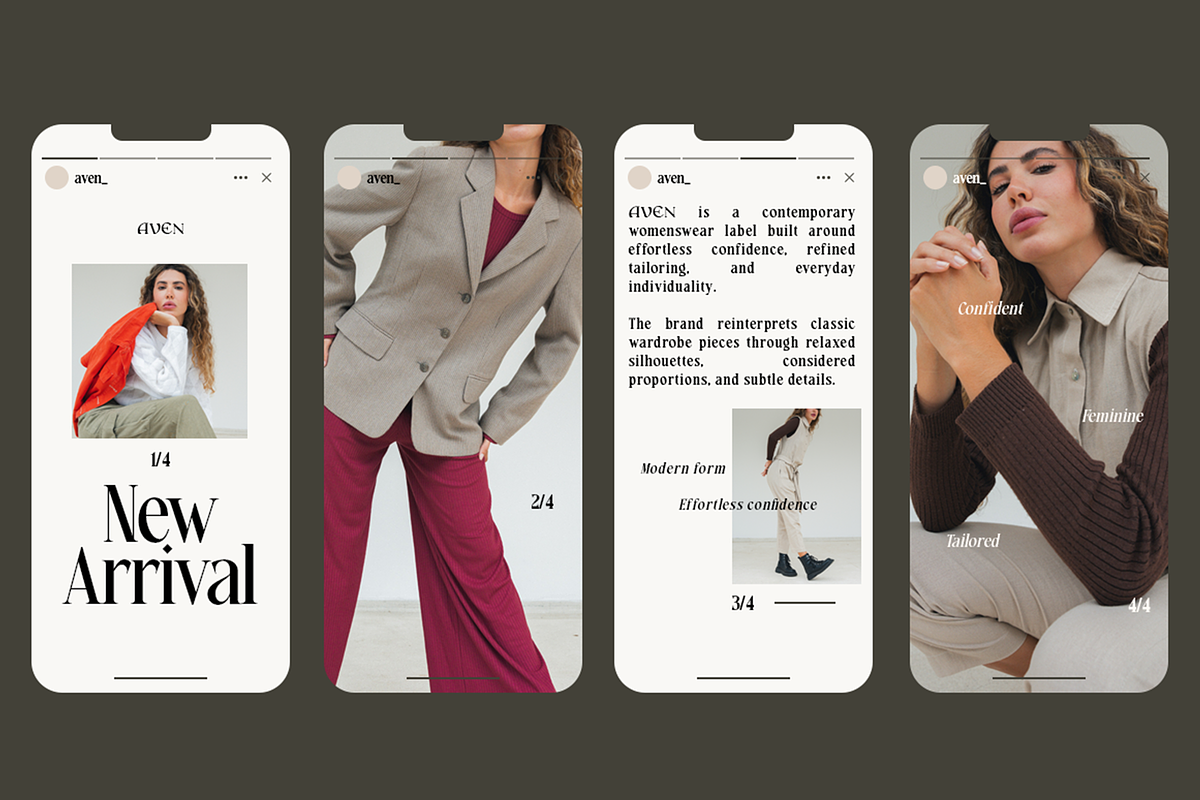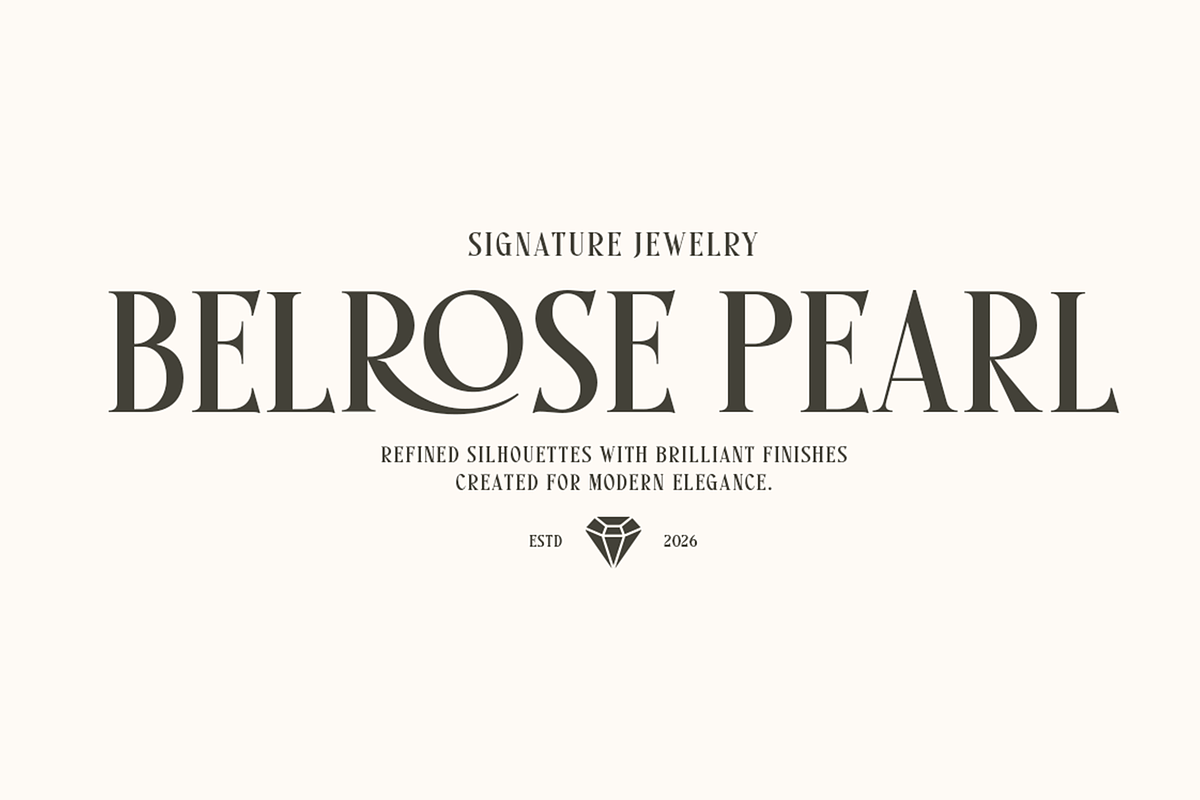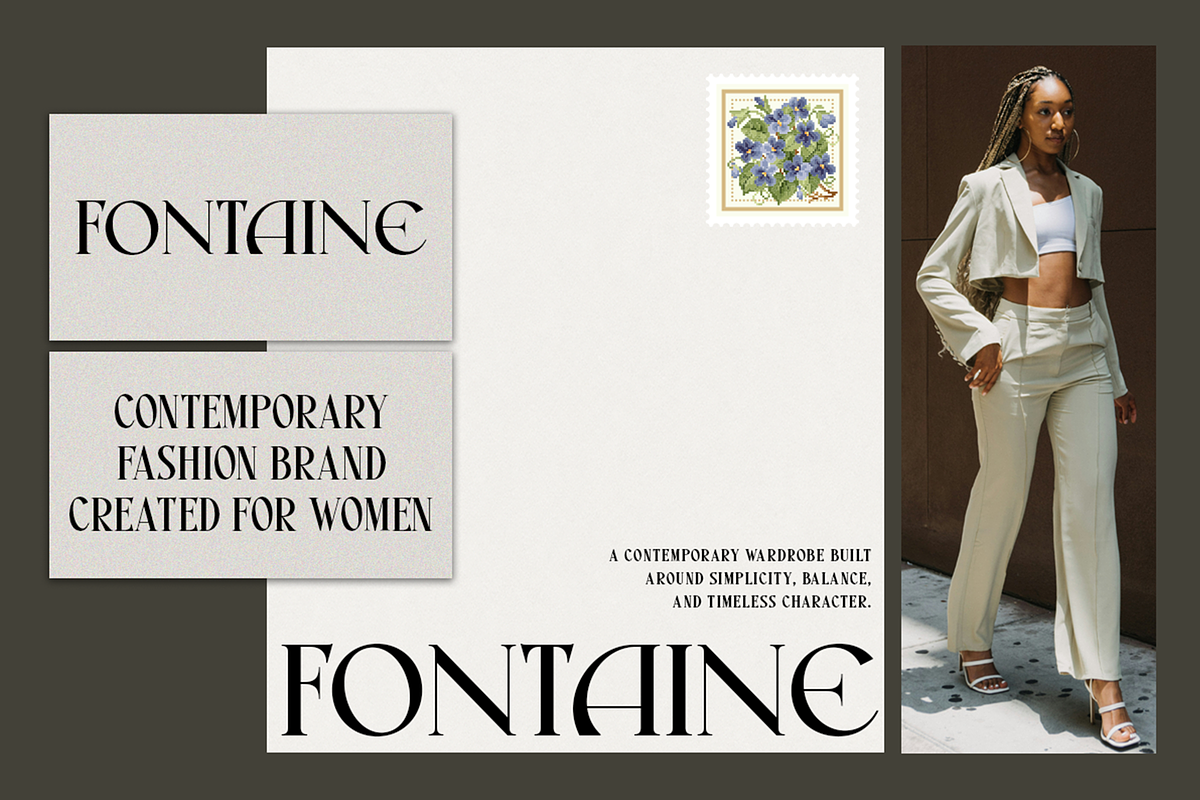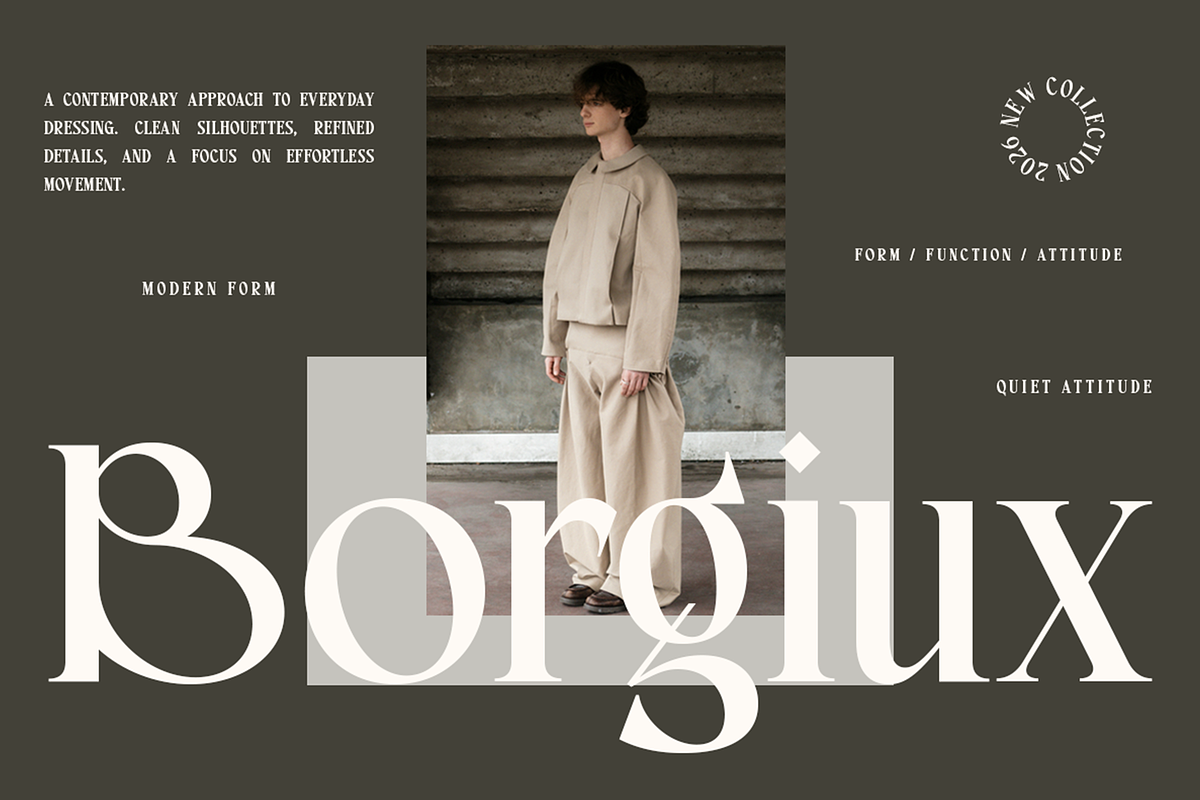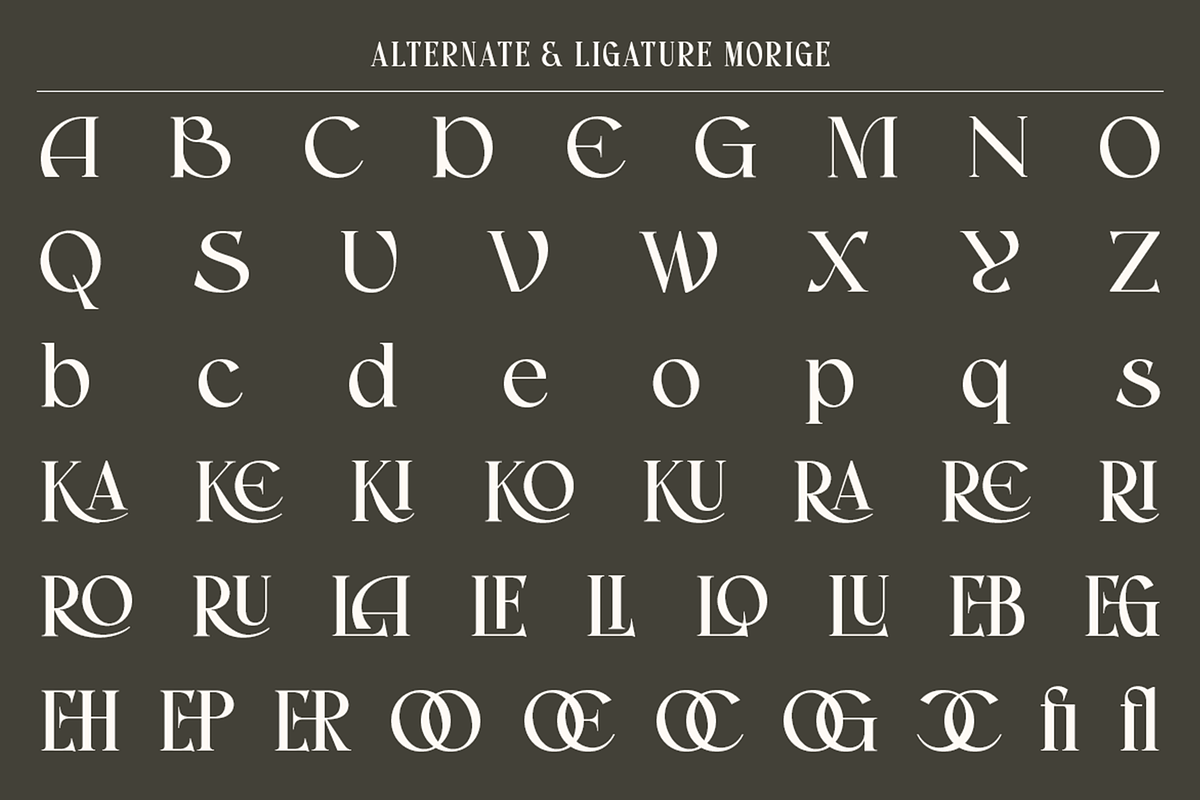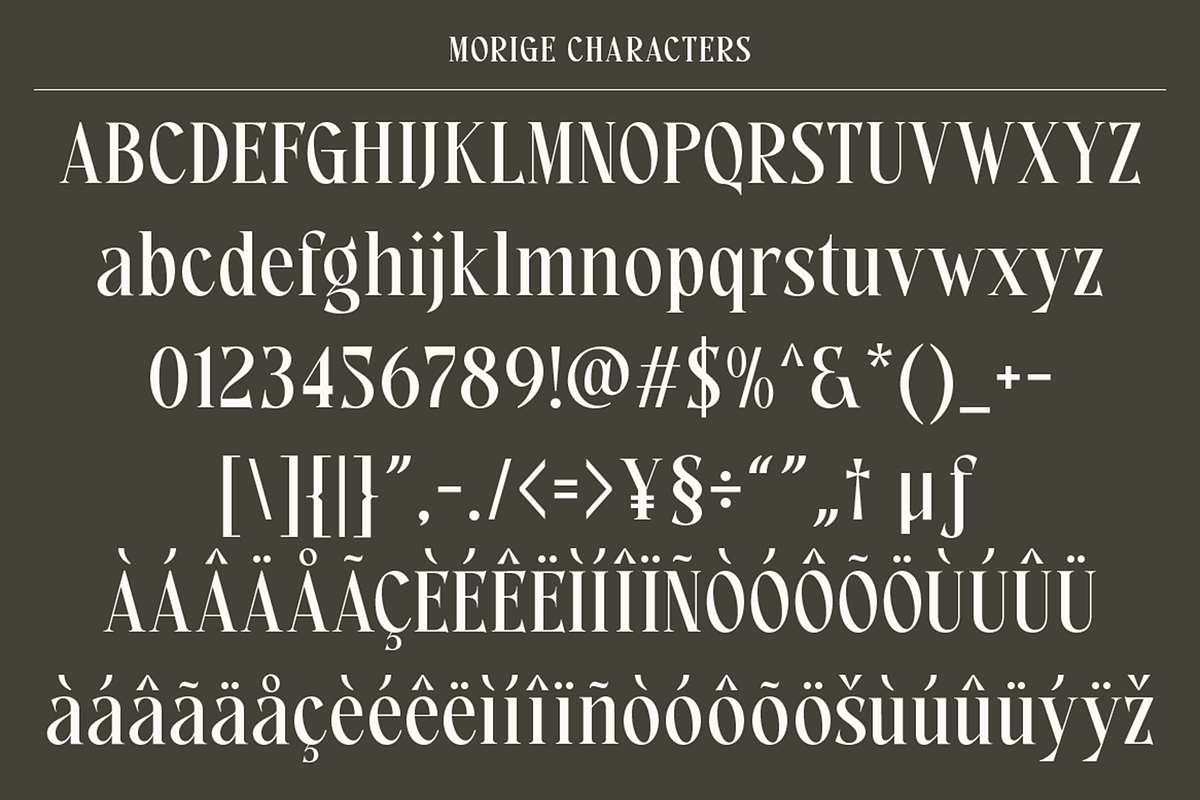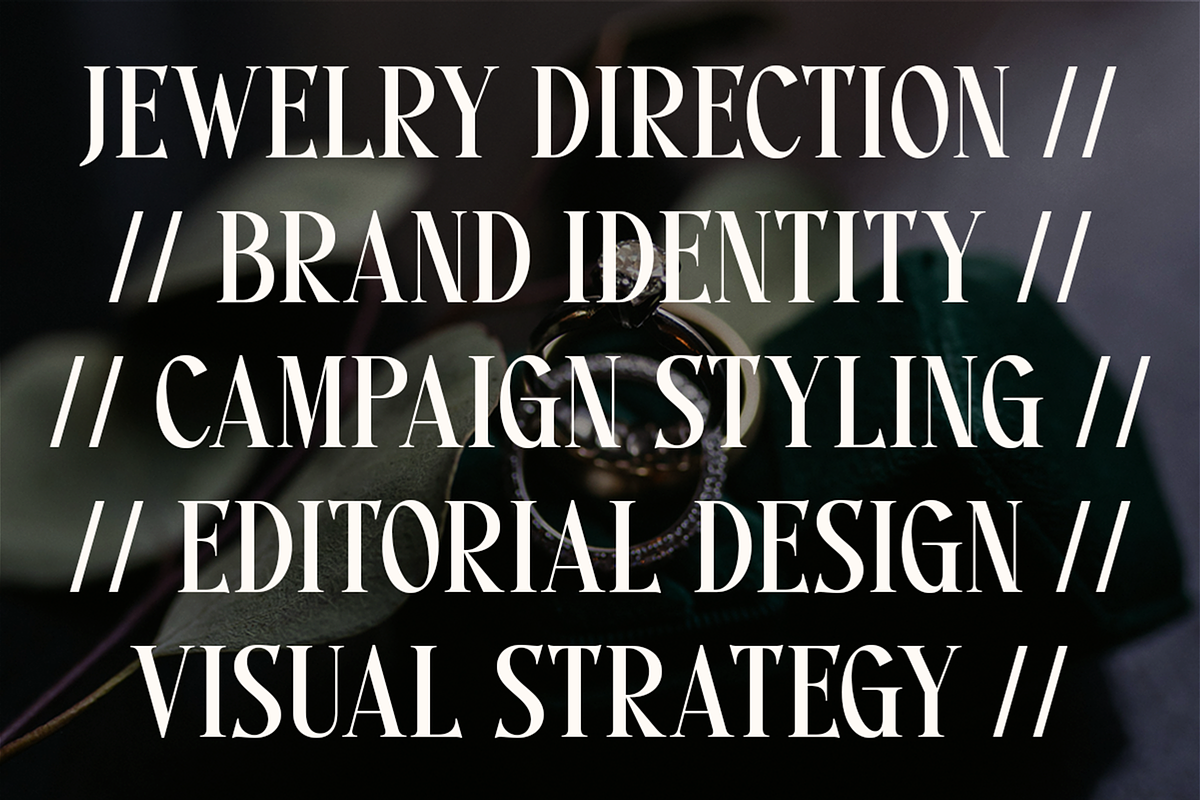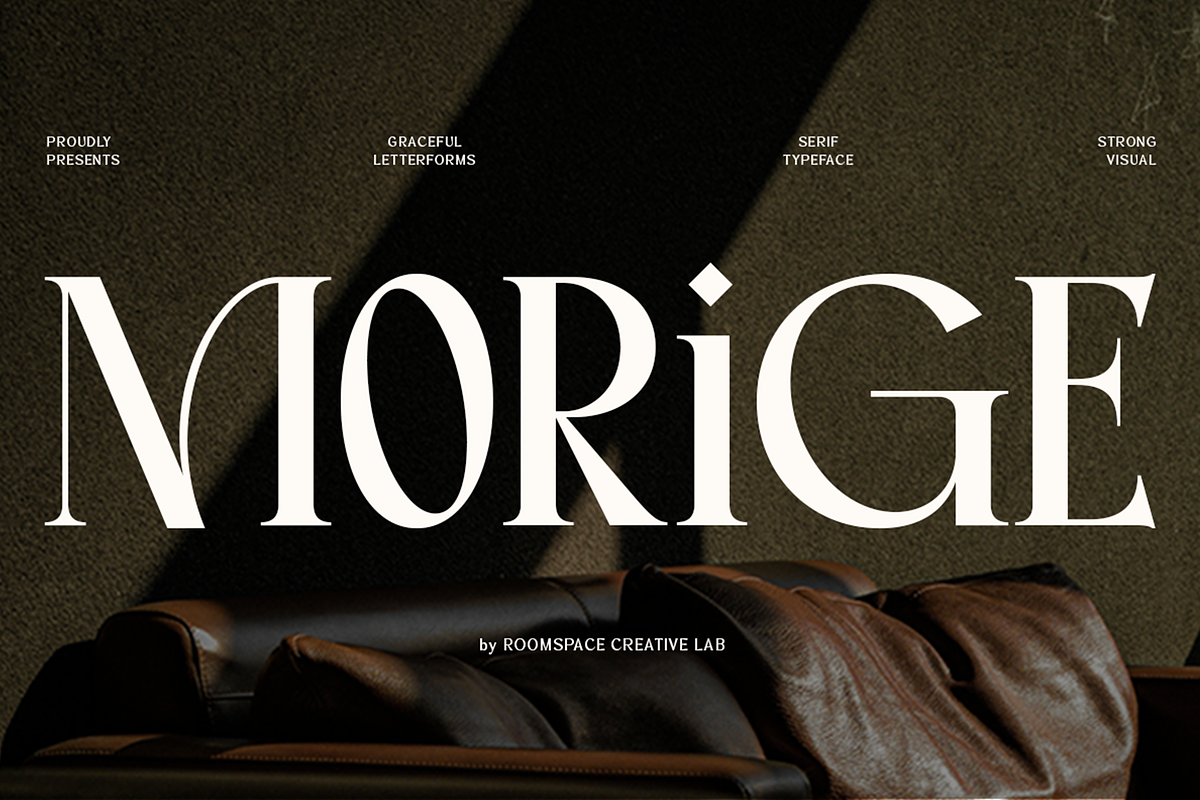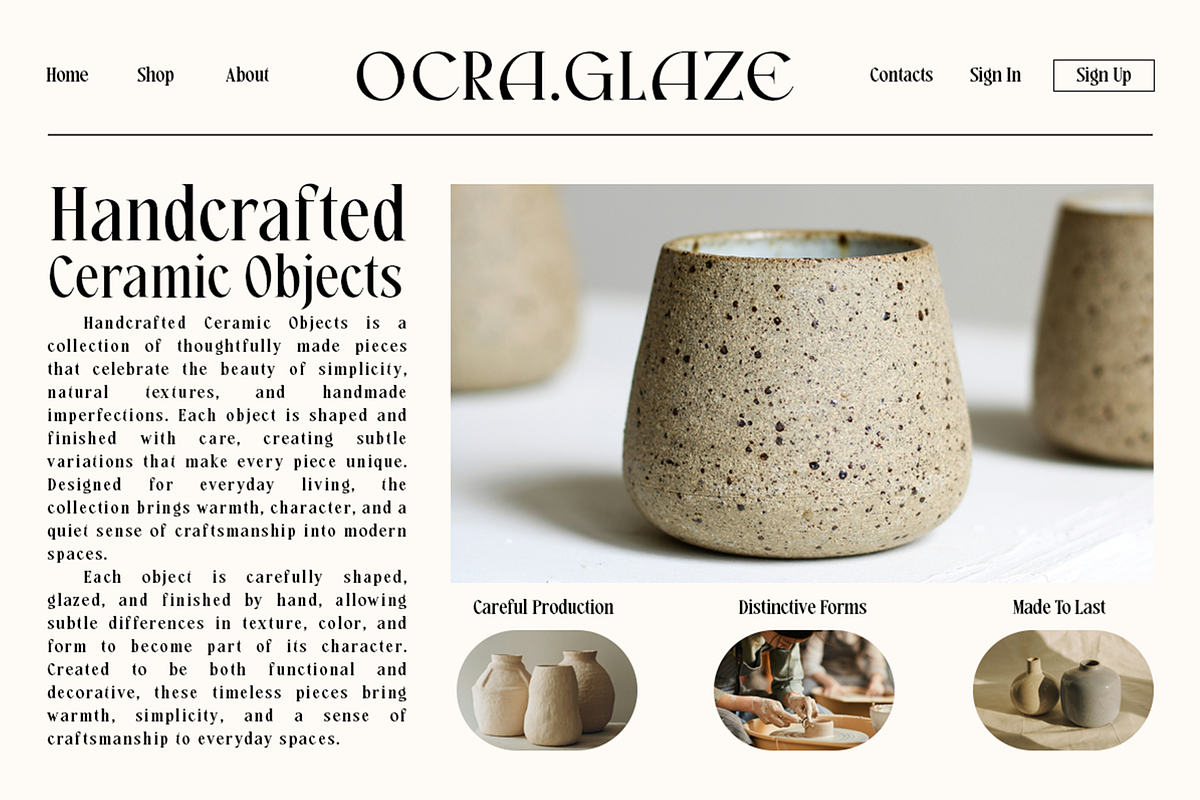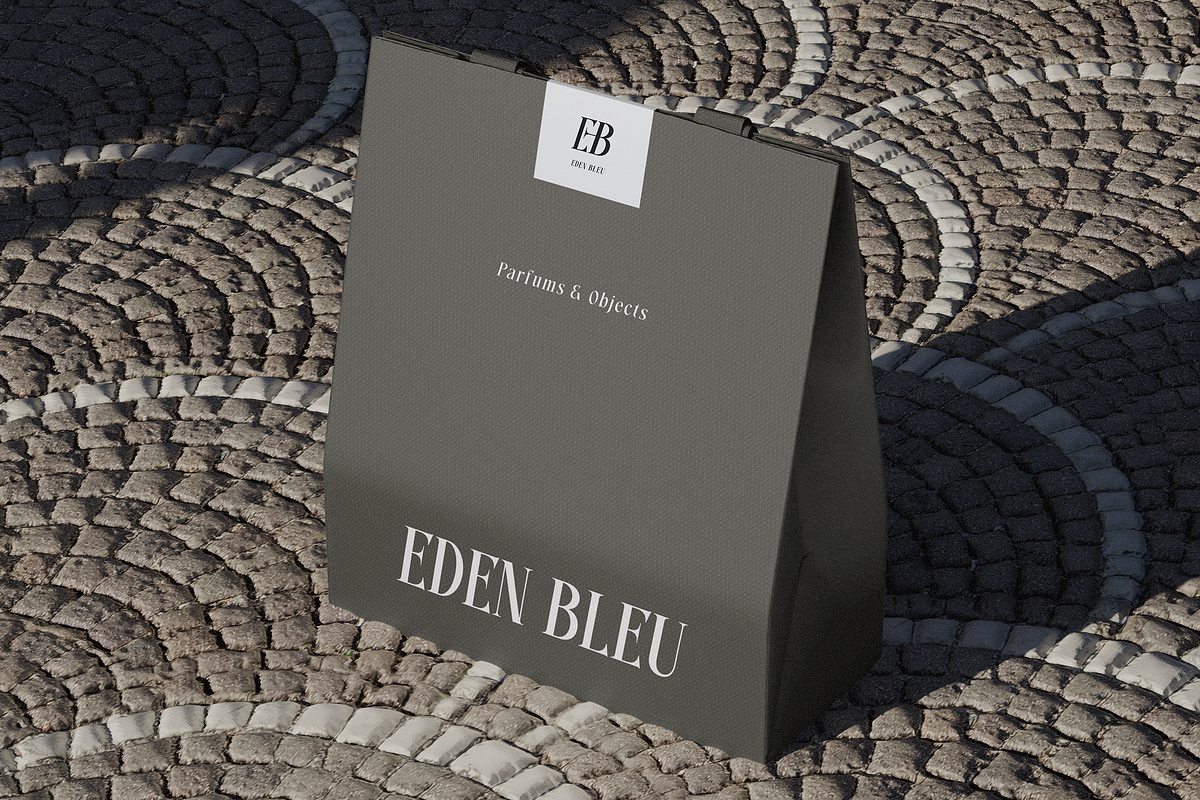
Morige - Elegant Serif Display
Morige is a high-contrast editorial serif font designed with elegant proportions, sharp serifs, dramatic stroke contrast, and distinctive letterforms. Its refined shapes and graceful curves create a sophisticated typographic style that brings a strong visual presence to fashion, branding, and editorial projects.
Morige is designed for display use and works especially well for logos, branding, fashion identities, magazine covers, headlines, packaging, editorial layouts, advertising, invitations, jewelry branding, beauty projects, social media graphics, and other typography-focused designs. Its high-contrast construction gives the font an elegant character, while its distinctive details help brand names and large headlines stand out clearly.
With its alternate characters and ligatures, Morige provides additional options for creating unique wordmarks, expressive headlines, and refined typographic compositions. Whether you're creating a fashion label, beauty brand, jewelry identity, editorial campaign, packaging concept, or sophisticated social media graphic, Morige offers a versatile serif style that adapts to a variety of creative applications.